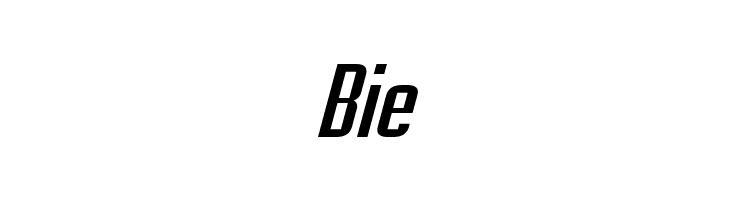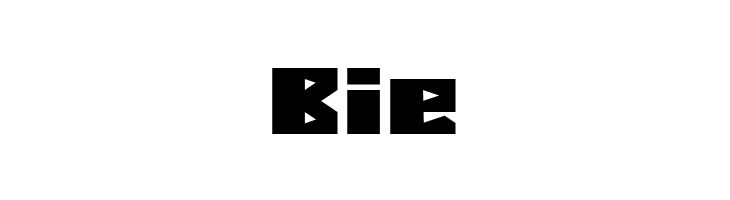
• Empanada Extended
A bold, extended, and modern geometric font with strong visual impact.
• Empanada Extended Bold
A bold, extended, and geometric font with a modern style.
• Empanada Extended Bold Italic
A bold, italicized, and extended font with a modern and dynamic style.
• Empanada Extended Italic
A bold, extended italic font with a modern and dynamic style.
• Empanada Extended Outline Italic
A modern, extended outline font with an italic slant, perfect for dynamic designs.
• Empanada Italic
A bold, italic font with elongated, slanted letterforms and consistent stroke thickness.
• Empanada Outline Italic
A bold, outlined, italic font with a modern and dynamic style.
• Empires
A bold, handwritten font with dynamic, flowing strokes.
• Ende Demo
A bold, hand-painted style font with dynamic, expressive strokes.
• ENERMOUS
A bold, geometric font with sharp angles and a modern, edgy style.